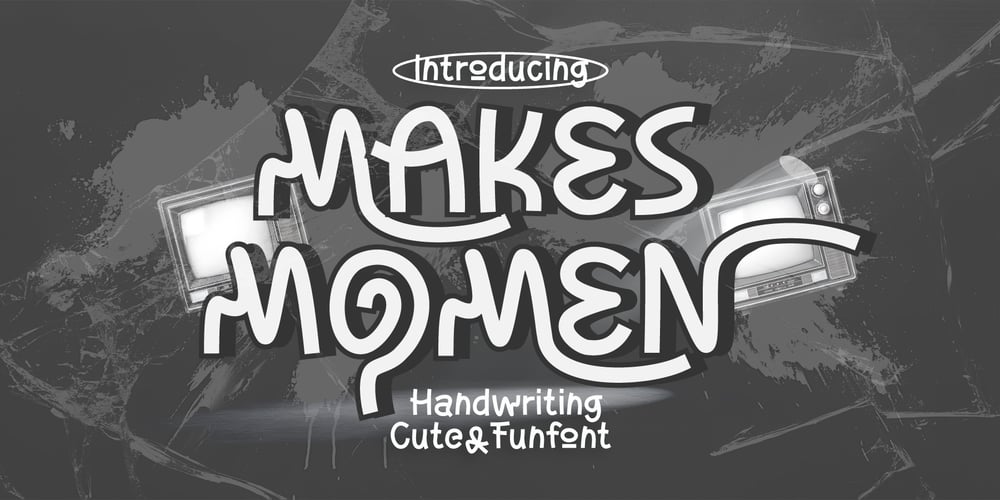
Makes Momen Font Family was designed by Eka Rifqi Setiawan and published by Erifqizefont. Makes Momen contains 1 styles and family package options. Introducing MAKES MOMEN, a playful and charming handwriting-style font that features bold, thick lines to add a delightful and fun vibe to any project. With its unique ligatures and alternates, MAKES MOMEN brings a personalized, creative touch to your designs. Perfect for casual and cheerful projects, this font also supports multiple languages, making it versatile and accessible for a global audience.I hope this works for you!